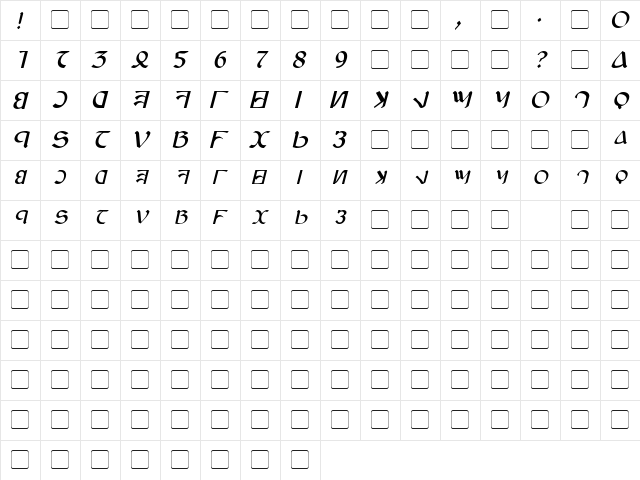
Anayanka Italic
| Foundry | Neale Davidson |
| Designer | Neale Davidson |
Design Context for Anayanka Typeface
Anayanka is a composed and adaptable typeface that performs quietly and consistently across a wide range of design contexts. The dynamic lean of this cut emphasises speed and emphasis in any layout.
Pro Tip: Try Anayanka for annotation and caption copy alongside an upright companion — the contrast in angle creates a dynamic but ordered typographic system.